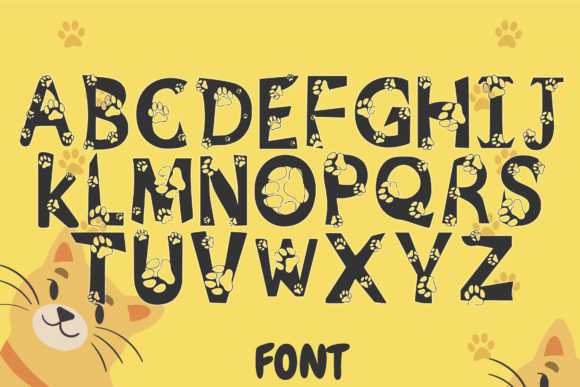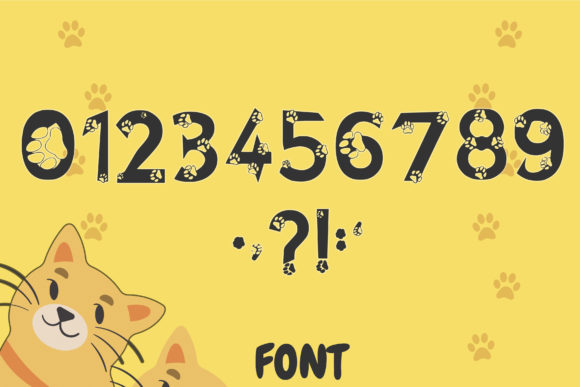
Introduction to My Cat’s Paw Font
My Cat’s Paw is a fun and uniquely designed decorative font, featuring characters with paws on each of them.
Whether you use it for cartoon related designs, children games or just any creation that requires a lovely touch, this font will be an amazing choice .
Key Features of My Cat’s Paw Font
Why Choose My Cat’s Paw Font?